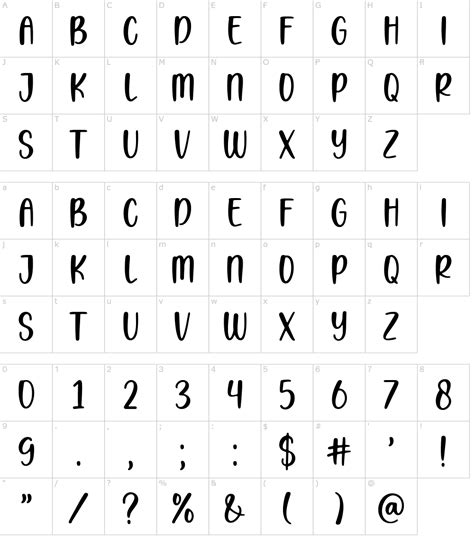
Starship Font: Explore Iconic Typefaces
Hey guys! Today, we’re diving deep into the awesome world of the Starship font . You know, that iconic typeface that’s instantly recognizable and has graced everything from movie posters to album covers. If you’ve ever wondered what makes this font so special, or where you can snag it for your own projects, you’ve come to the right place. We’re going to break down everything you need to know about the Starship font, from its origins to its various applications and how to find similar styles if the original is a bit tricky to get your hands on.
The Allure of the Starship Font
So, what’s the big deal with the Starship font, anyway? Well, it’s all about that distinctive retro-futuristic vibe . Think classic sci-fi movies, old-school arcade games, and that unmistakable sense of adventure. The Starship font typically features bold, geometric shapes with sharp edges and a certain dynamism that just screams ‘space age’. It’s not just a font; it’s a statement. It evokes feelings of exploration, innovation, and a touch of nostalgia for a future that was imagined decades ago. Its design often incorporates elements like extended ascenders and descenders, unique ligatures, and a slightly condensed or extended width depending on the specific variation, all contributing to its unique character. When you see it, you immediately get a sense of purpose and excitement, making it a powerful tool for designers looking to capture a specific mood or theme. This font has a way of making any text feel important and impactful, whether it’s a headline, a logo, or even a call to action. Its versatility, despite its strong personality, is another key factor in its enduring popularity. You might find it used in branding for tech companies, promotional materials for events, or even in personal creative projects where the creator wants to impart a sense of wonder and discovery.
Origins and Inspirations
While there isn’t one single, officially recognized ‘Starship Font’ with a direct lineage, the term often refers to a style inspired by the typography seen in classic science fiction media . Many fonts that fall under this umbrella draw heavily from the designs of the mid-20th century, particularly the era when space exploration was a burgeoning fascination. Think about the titles of movies like 2001: A Space Odyssey , Star Wars , or Close Encounters of the Third Kind . The lettering in these films, and in the sci-fi comics and literature of the time, often featured clean lines, sharp angles, and a sense of technological advancement. Designers creating fonts that capture this ‘Starship’ feel often look to these iconic examples for inspiration. They might experiment with sans-serif styles, geometric constructions, and sometimes even a touch of stencil or block lettering. The goal is to create a typeface that feels both familiar and futuristic, tapping into our collective imagination of what the future might look like. Some fonts might be direct homages, while others are more abstract interpretations, but they all share that common thread of evoking space, technology, and adventure. The precise origins are often a bit murky, with many fonts evolving organically from design trends rather than a singular creation event. However, the impact of early sci-fi cinema and graphic design on the development of these typefaces is undeniable, cementing their place in the visual language of the genre.
Where to Find Starship-Inspired Fonts
Finding the exact font used in a specific movie or game can sometimes be a treasure hunt, guys! The original props might use custom lettering, not a commercially available font. However, there are tons of fantastic fonts out there that capture that Starship essence . Many font foundries and independent designers have created typefaces that are heavily inspired by this aesthetic. You can find them on popular font marketplaces like MyFonts, Fontspring, Adobe Fonts, or even through free font repositories like Google Fonts (though you might need to search a bit more creatively there). When searching, use keywords like ‘sci-fi font’, ‘space font’, ‘futuristic font’, ‘retro-futuristic’, ‘geometric sans-serif’, or even specific movie/game titles if you’re looking for something very close. Some popular examples of fonts that evoke a similar feel include things like Eurostile, Orbitron, Neo-Vegas, and various geometric sans-serif families. Keep an eye out for fonts with sharp corners, extended widths, or unique stylistic alternates. The beauty of digital fonts is the sheer variety available, so even if you don’t find the one-to-one match, you’ll likely discover a whole host of alternatives that will perfectly suit your needs. Don’t be afraid to explore and experiment with different options until you find that perfect visual match for your project. Remember, sometimes a font that’s part of a larger family offers multiple weights and styles, giving you even more flexibility to create a cohesive design.
Using Starship Fonts in Your Designs
So, you’ve found a killer Starship-inspired font – now what? The application of these fonts is where the magic really happens . These typefaces are perfect for any project that needs a dose of retro-futuristic charm or a strong sci-fi theme. Think about:
• Movie Posters & Titles: This is probably their most iconic use case. A bold Starship font can make your film title pop and immediately convey the genre.
• Game Design: Whether it’s an indie retro game or a modern sci-fi epic, these fonts add authenticity and excitement to menus, HUDs, and in-game text.
• Album Art: For bands in the electronic, synthwave, or space rock genres, a Starship font can be the perfect visual signature.
• Branding & Logos: Tech companies, futuristic startups, or even retro-themed businesses can leverage these fonts for a memorable identity.
• Event Promotion: Think sci-fi conventions, themed parties, or even product launches for cutting-edge technology.
• Website Design: Especially for portfolios, blogs, or sites with a retro or futuristic aesthetic.
When using them, remember that these fonts often have a lot of personality. They work best for headlines, subheadings, or short bursts of text where they can have maximum impact. For longer paragraphs, you might want to pair them with a more neutral, readable font to ensure legibility. Consider the overall mood you want to create. Are you going for sleek and modern, or gritty and analog? The specific Starship-style font you choose can subtly shift the feeling. Bold weights are great for grabbing attention, while lighter weights can add a touch of sophistication. Don’t be afraid to play with letter spacing (kerning) to fine-tune the look. For a truly authentic feel, consider using them alongside other retro-futuristic design elements like geometric patterns, metallic textures, or neon color schemes. The key is to use them thoughtfully, allowing the font to enhance your message without overpowering it. It’s all about finding that sweet spot between impactful design and clear communication , ensuring your audience not only sees your message but feels the intended vibe.
Tips for Choosing the Right Starship Font
Alright, picking the perfect Starship font can feel a bit overwhelming with so many options, right? Here are some tips to help you narrow it down and make sure you choose a typeface that’s not just cool, but also works for your project:
1. Consider the Specific Era/Subgenre: Is your project aiming for a ‘50s B-movie sci-fi feel, a sleek ‘80s arcade look, or a more contemporary interpretation? Different Starship-style fonts lean into different aesthetics. Some are more angular and aggressive, while others are smoother and more rounded.
2. Legibility is Key (Usually): While these fonts are often about style, make sure they’re readable for their intended purpose. If it’s for a main headline, a highly stylized font might be fine. But if it’s for body text or important information, opt for a cleaner, more legible variation or pair it with a readable sans-serif.
3. Check the Character Set & Glyphs: Does the font include all the characters you need (uppercase, lowercase, numbers, punctuation, special symbols)? Some highly stylized fonts might have limited character sets. Look for fonts with extra glyphs or stylistic alternates if you want to add extra flair.
Final Thoughts on Starship Fonts
So there you have it, folks! The Starship font and its many inspired relatives are more than just letters; they’re a gateway to imagination, adventure, and a distinctively cool aesthetic. Whether you’re designing a poster, a logo, or just looking to add some flair to your text, these fonts offer a powerful way to capture that retro-futuristic, sci-fi vibe. Remember to search smart, choose wisely based on your project’s needs, and don’t be afraid to experiment. The right font can truly elevate your design and transport your audience. Keep exploring, keep creating, and have fun with it! Happy designing, everyone!